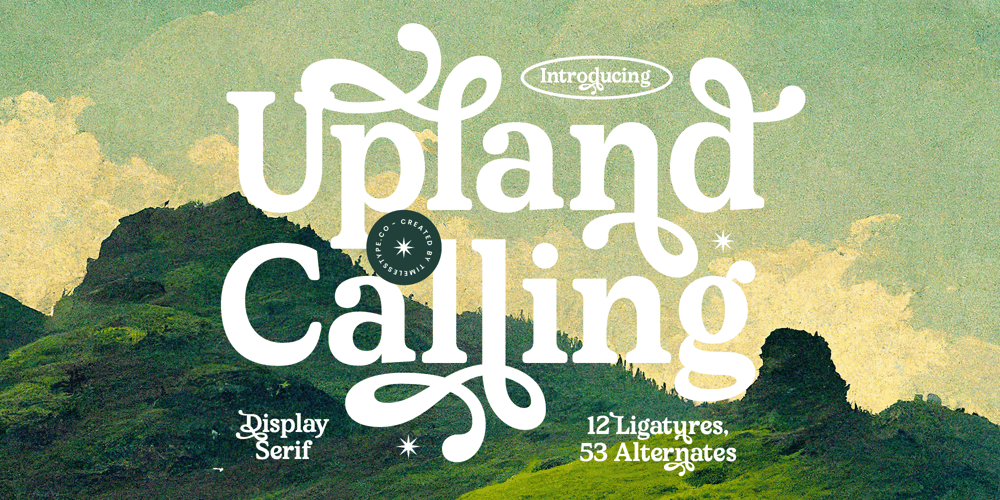
Upland Calling Font Family was designed by Heru Utama Putra and published by Timelesstype Studio. Upland Calling contains 2 styles and family package options. Upland Calling – Display Serif Font , from Timelesstype , Suitable for any projects such as: logos, branding projects, homeware designs, product packaging, mugs, quotes, posters, shopping bags, t-shirts, book covers, name card, invitation cards, greeting cards, label, photography, watermark, special events, and all your other luxury and beautiful projects that need a Luxury Serif taste.